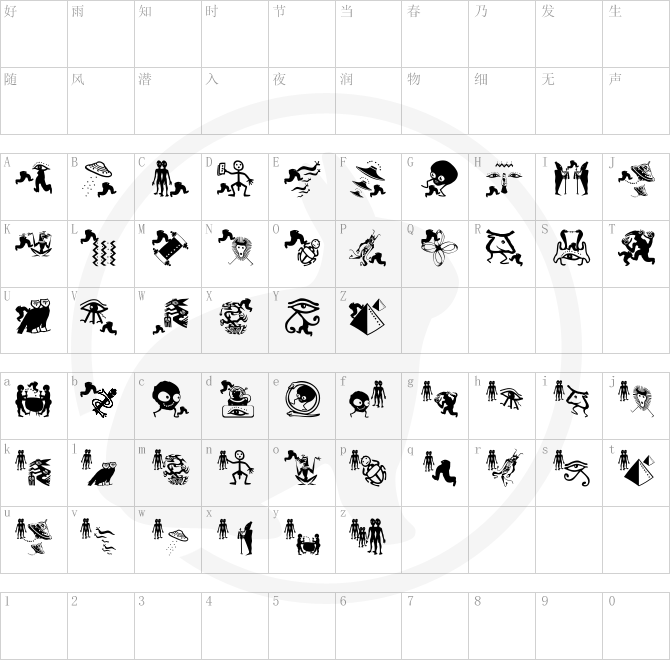
- Font Name:FabCreatures
FabCreatures.ttf is a very beautiful artistic font, FabCreatures.ttf is widely used in the design and printing of various books and pictures,FabCreatures.ttf has a strong visual impact,FabCreatures.ttf is a commonly used font in newspapers, magazines and books, and is used in posters, e-commerce Poster design, store design, logo design, font design and other fields.FabCreatures.